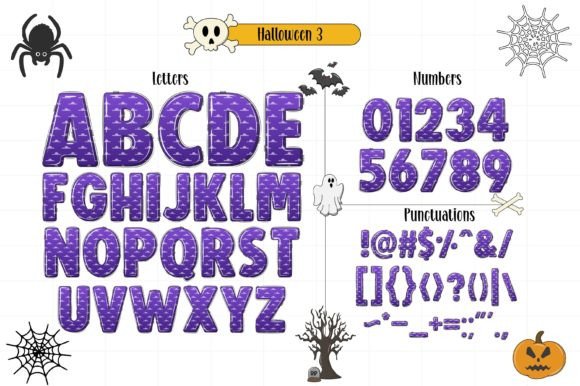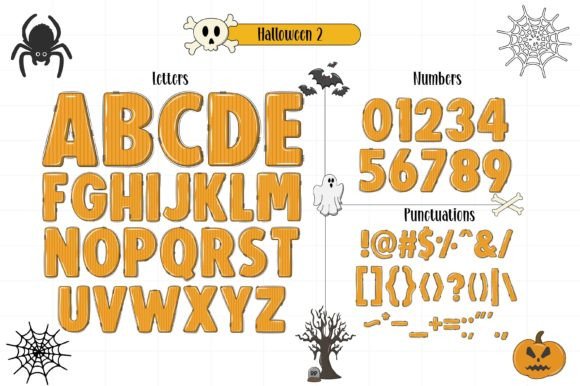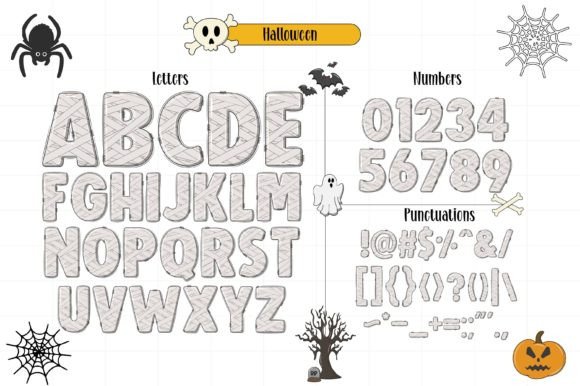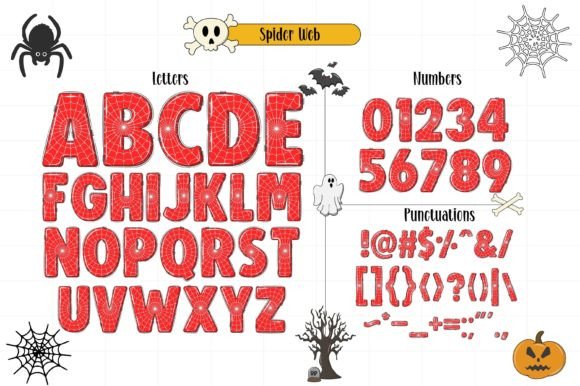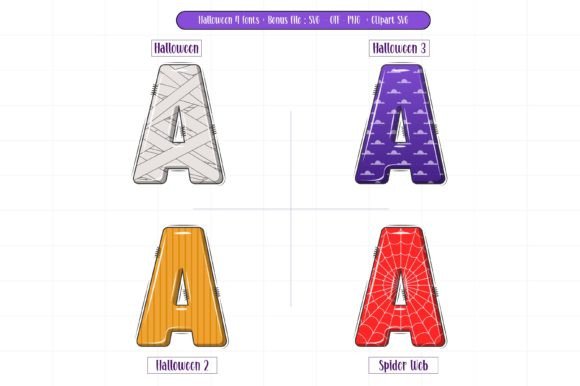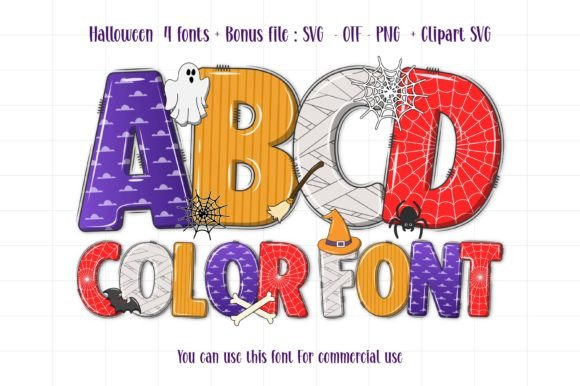
Introducing “Halloween” – A Spook-tacular Font for Your Festive Creations
Are you ready to add a dash of spooky charm to your designs? Look no further than the “Halloween” font, a playful and adorable typeface that’s perfect for creating festive and fun projects. This versatile font is designed to bring a touch of whimsy to your creations, making it an ideal choice for Halloween-themed designs, horror-inspired projects, and even cute and quirky styles.
A Font that’s Full of Character
The “Halloween” font is steeped in delightful Halloween-inspired details and colors, making it a standout choice for designers and crafters. Its unique and captivating allure is sure to breathe life into your ideas, making them shine and captivate your audience. Whether you’re creating invitations, decorations, or DIY projects, this font is sure to add a touch of magic to your designs.
One of the best things about the “Halloween” font is its versatility. It’s not just limited to Halloween-themed designs; it can be used in a variety of creative projects, including horror-inspired designs, cute and quirky styles, and even everyday crafting. The font’s playful and charming nature makes it perfect for designers and crafters who want to add a touch of personality to their work.
The “Halloween” font is perfect for designers and crafters who want to add a touch of personality to their work. Whether you’re creating professional designs or fun DIY projects, this font is sure to inspire your creativity and bring your ideas to life. Its unique and captivating allure makes it perfect for a variety of projects, including:
• Halloween-themed designs, such as invitations, decorations, and party accessories
• Horror-inspired designs, such as posters, flyers, and social media graphics
• Cute and quirky styles, such as stickers, washi tape, and journaling
• DIY projects, such as signs, banners, and iron-on designs
Why Choose the “Halloween” Font?
So why choose the “Halloween” font for your next project? Here are just a few reasons why:
• Unique and captivating design that’s sure to stand out
• Versatile and can be used in a variety of creative projects
• Perfect for designers and crafters who want to add a touch of personality to their work